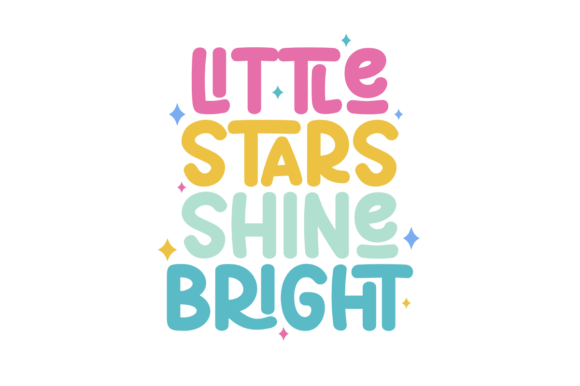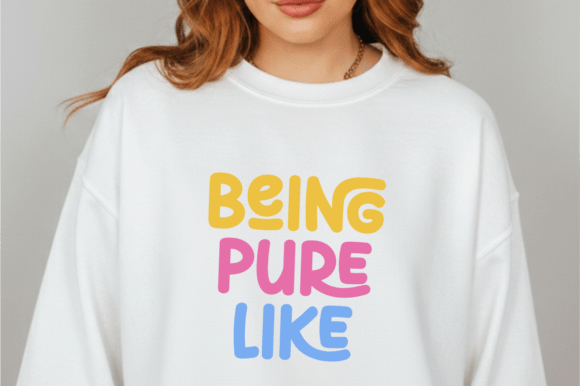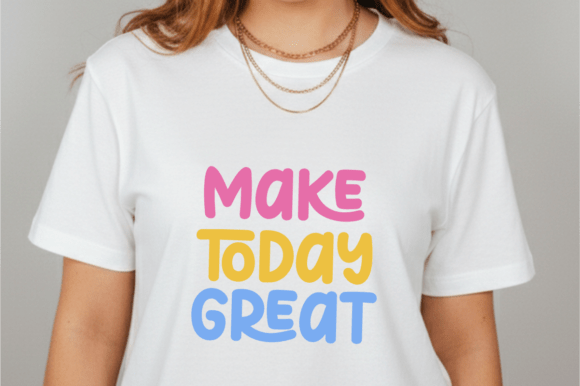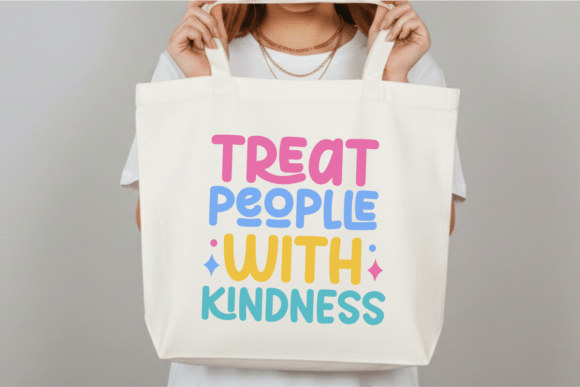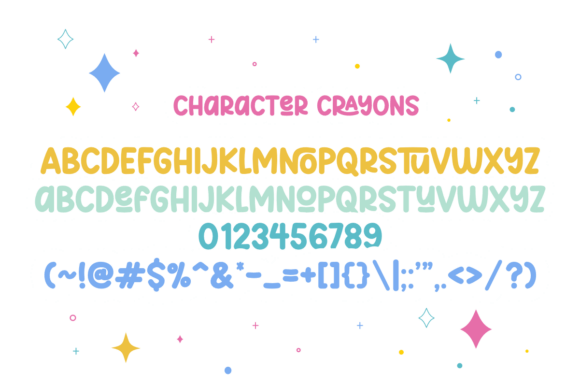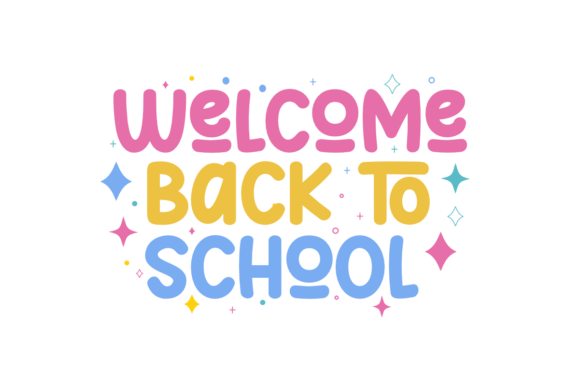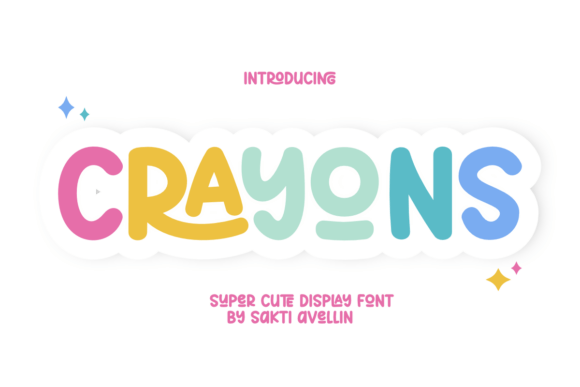
Introducing Crayons Font: Unleash Your Creativity with a Touch of Nostalgia
Step into a charming world of artistic expression with “Crayons”, an irresistibly enchanting display font that will transport you back to a time of carefree creativity. This beautifully designed typeface oozes the allure of handwritten crayon strokes, infusing an adorable sense of nostalgia that is sure to captivate your audience. Whether you’re a designer, crafter, or simply someone who loves to express themselves through art, “Crayons” is the perfect choice for adding a touch of whimsical elegance to your creations.
The Perfect Font for Creative Souls
“Crayons” is more than just a font – it’s an experience. Its unique, hand-drawn design is reminiscent of childhood memories, evoking feelings of joy and playfulness. This font is perfect for a wide range of creative projects, including quotes, posters, greeting cards, birthday cards, and baby showers. The possibilities are endless, and with “Crayons”, you can add a personal touch to your designs that will make them truly special.
Beyond Traditional Designs: Versatility at Its Best
But “Crayons” doesn’t just stop at traditional designs. This versatile font also suits beautifully for designing a variety of products, such as t-shirts, tote bags, mugs, key chains, frames, and pillows. Imagine being able to create unique and eye-catching designs for your favorite products, all with the same font that brings a smile to your face. With “Crayons”, you can add a touch of personality to your products and make them stand out from the crowd.
Key Features of Crayons Font
- Hand-drawn design: Each letter is carefully crafted to resemble handwritten crayon strokes, giving your designs a personal and unique touch.
- Nostalgic feel: The font’s playful and whimsical design is sure to evoke memories of childhood creativity and inspire your audience.
- Versatile: Use “Crayons” for a wide range of creative projects, from traditional designs to product designs.
- Elegant and playful: The font’s elegant curves and playful strokes make it perfect for adding a touch of sophistication and whimsy to your designs.
Tips for Using Crayons Font
To get the most out of “Crayons” font, here are a few tips to keep in mind:
- Experiment with colors: The font’s crayon-inspired design looks great in a variety of colors, so don’t be afraid to get creative and try out different hues.
- Mix and match: Combine “Crayons” with other fonts or design elements to create unique and eye-catching designs.
- Keep it simple: Don’t overcomplicate your designs – sometimes, the simplest designs are the most effective.
In conclusion, “Crayons” font is a must-have for any designer or crafter looking to add a touch of whimsical elegance to their creations. With its unique, hand-drawn design and nostalgic feel, this font is perfect for a wide range of creative projects. Whether you’re designing traditional products or unique items, “Crayons” is the perfect choice for adding a personal touch to your designs. So why wait? Download “Crayons” font today and unleash your creativity!